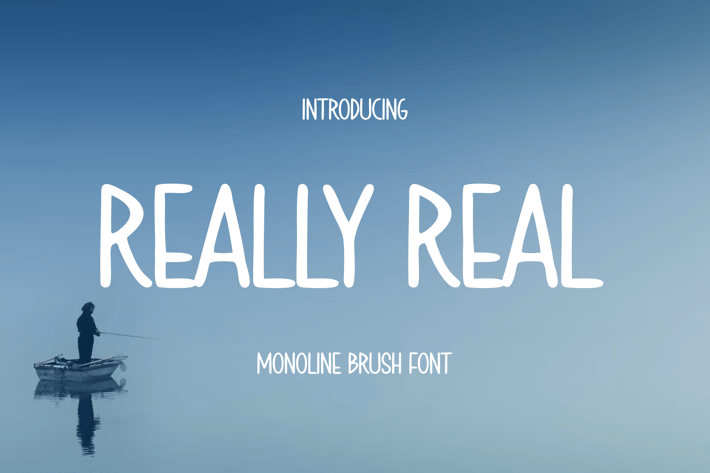
Really Real Fonts
Introducing our new product Roghan Really Real Fonts modern fonts.
Roghan Adventure Fonts modern font is a bold and authentic display font. The font is suitable for any branding project like.